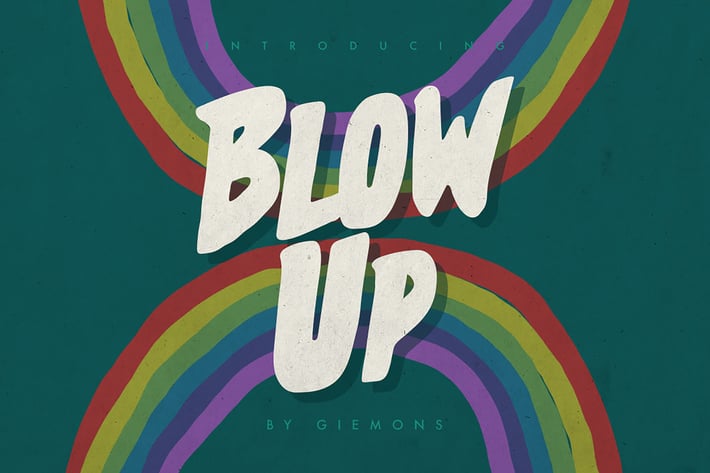
Blow Up Typeface
BLOW UP TYPEFACE can make it easier to convey the message in your design. Use for awesome display, labeling, clothing, movie sceen, poster, movie title, gigs, album covers, logos, and much more.